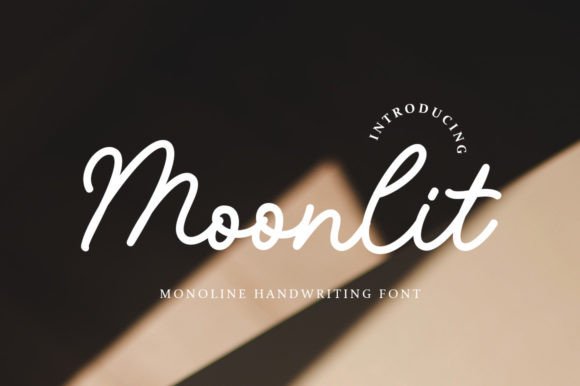
Embark on a typographic journey with Moonlit Font, the enchanting script that exudes sweetness and casual elegance. Crafted by the ingenious minds at MayoDesign, this font is a true gem, designed to elevate your creative projects to new heights of visual appeal.
Immerse yourself in the world of Moonlit Font, where every letter dances with a graceful charm, evoking a sense of warmth and intimacy. Its delicate strokes, reminiscent of a calligrapher's hand, lend an air of sophistication and artistry to your designs.
Step into the realm of minimalism with Moonlit Font, your perfect companion for creating designs that speak volumes with simplicity. Its clean lines and unassuming presence allow your content to take center stage, while its subtle nuances add a touch of understated elegance.
Unleash your creativity with Moonlit Font, a versatile tool that adapts effortlessly to a myriad of design endeavors. Whether you're crafting logos, branding materials, social media graphics, or wedding invitations, Moonlit Font seamlessly blends into your vision, adding a touch of understated charm.
Immerse yourself in the world of Moonlit Font, a font that captivates and enchants. Its sweet and casual demeanor invites you to explore the realm of creative possibilities, transforming your designs into works of art that resonate with your audience.